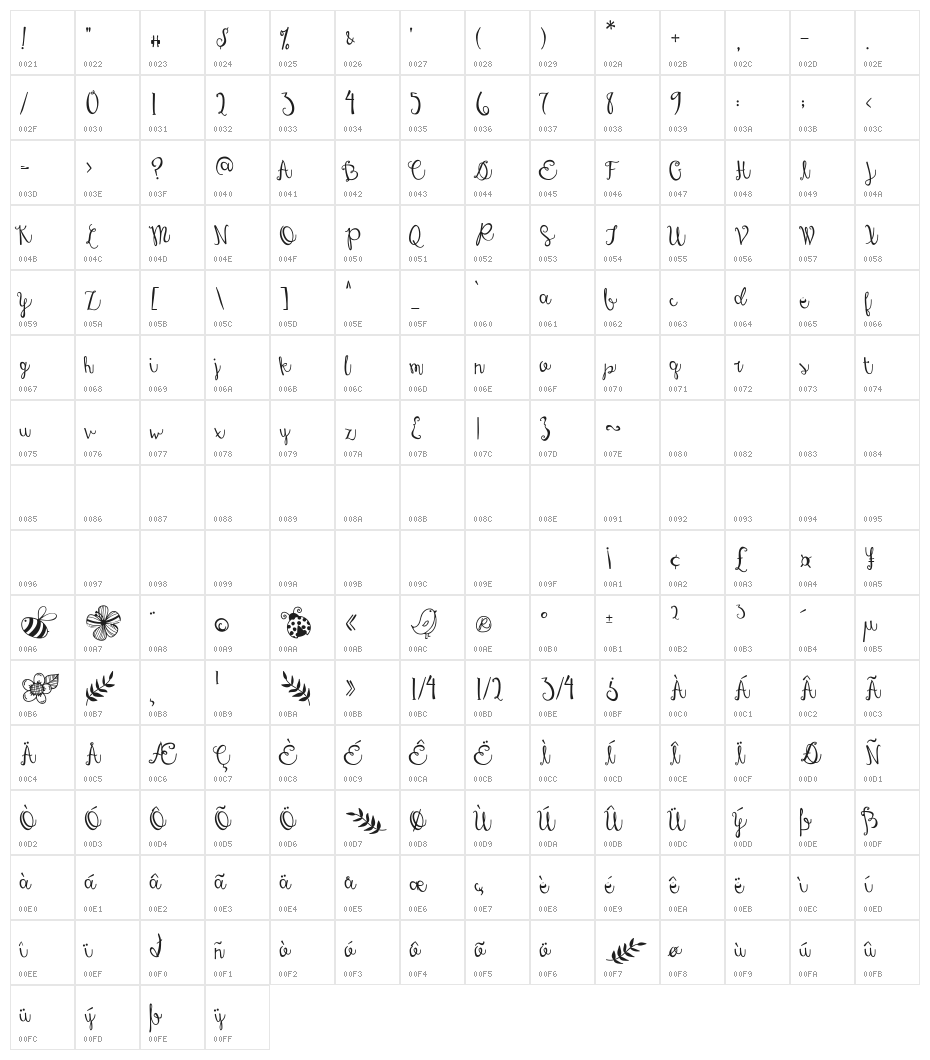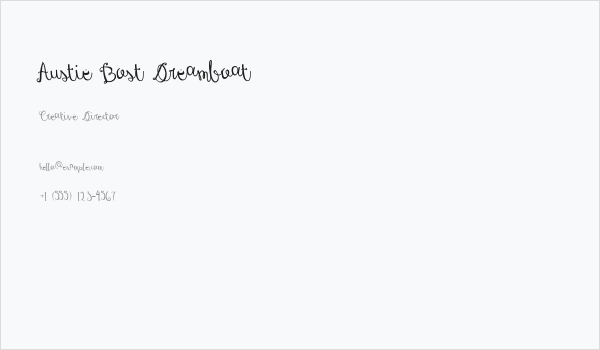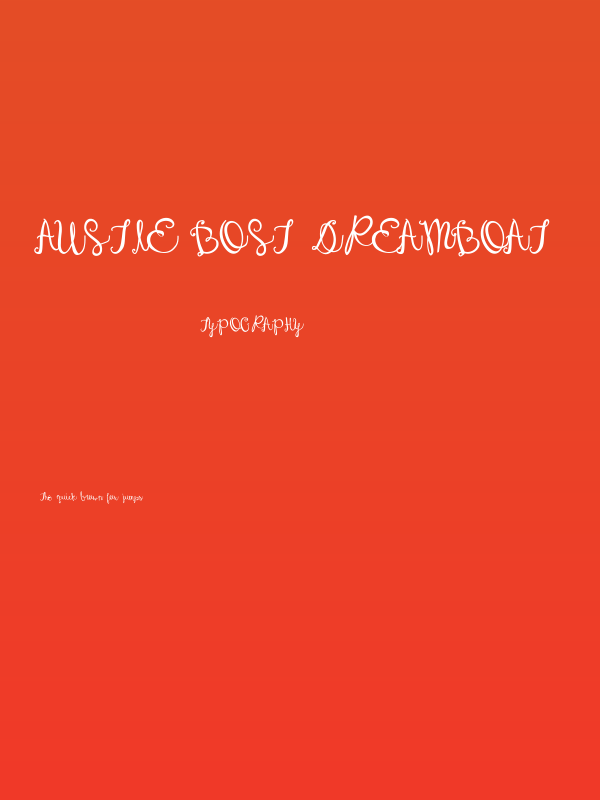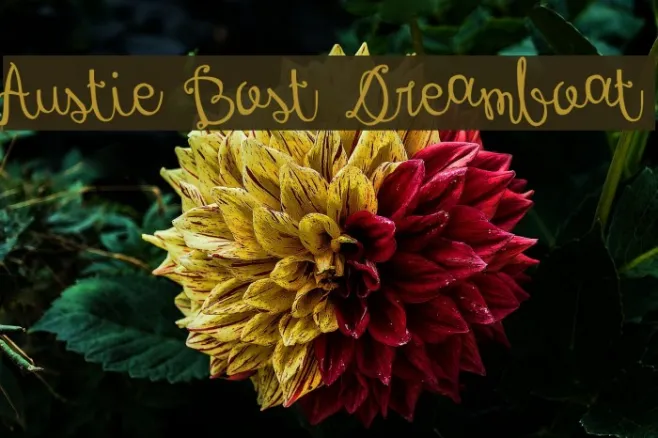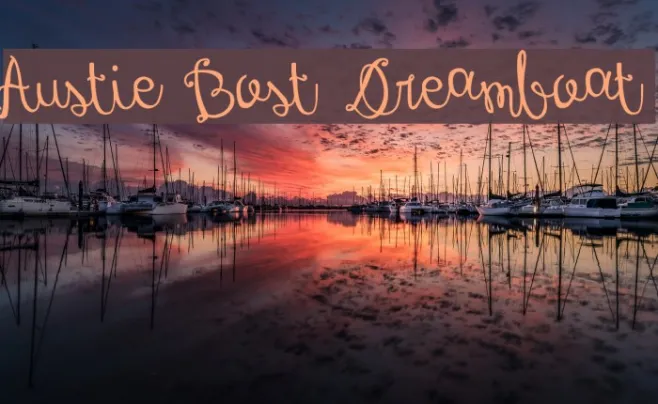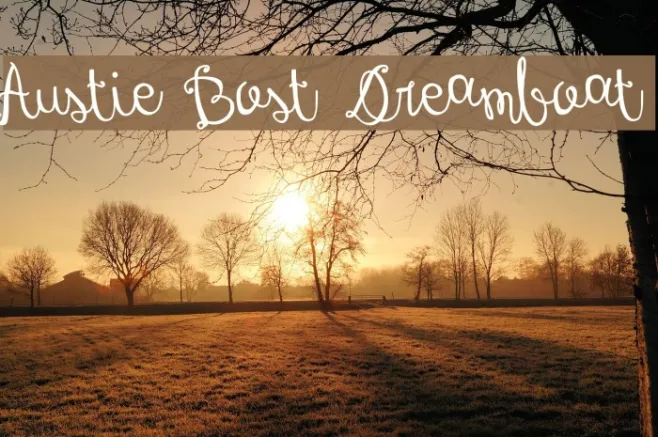
Austie Bost Dreamboat Font
Austie Bost Dreamboat Description
This font features a whimsical and playful script style with a hand-drawn appearance. The uppercase letters are characterized by their looping, flowing lines and occasional flourishes, giving them a lively and dynamic feel. The lowercase letters maintain a consistent style with a slightly more restrained design, yet still retain the playful essence. Numbers are crafted with the same artistic flair, ensuring a cohesive look across all characters. The special characters complement the overall style, adding to the font's versatility. This font is ideal for projects that require a touch of creativity and fun.